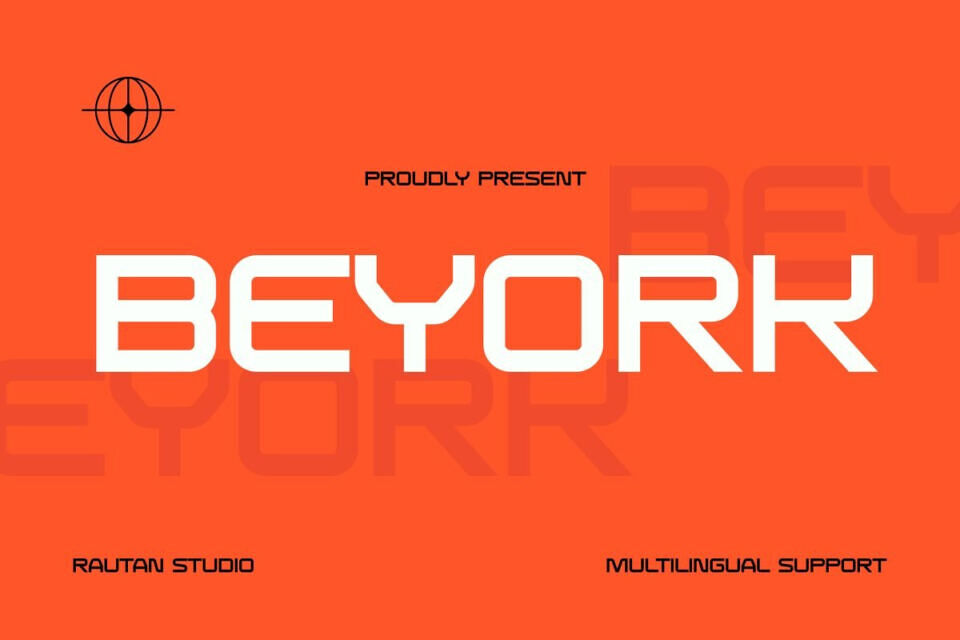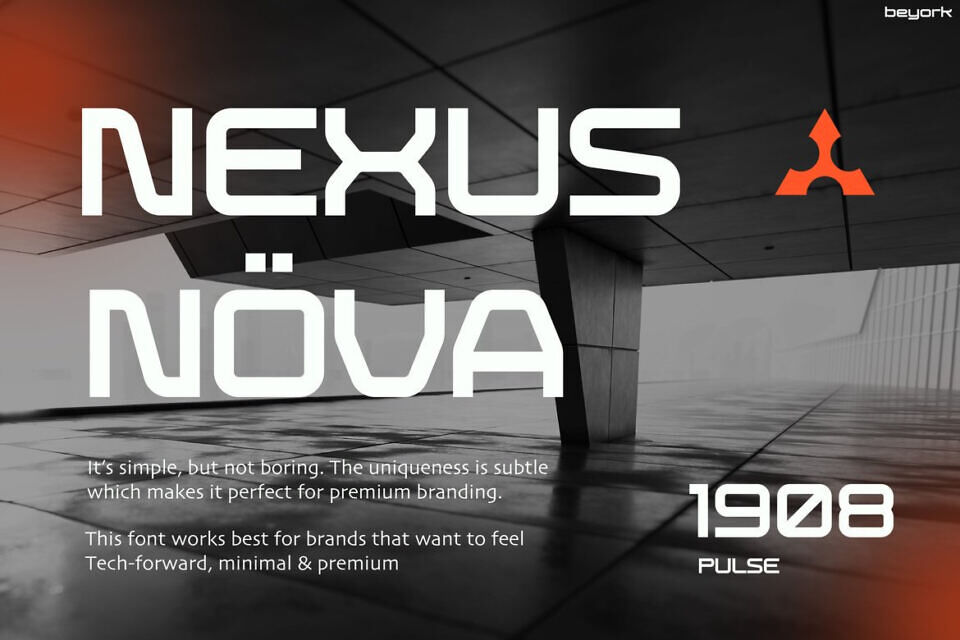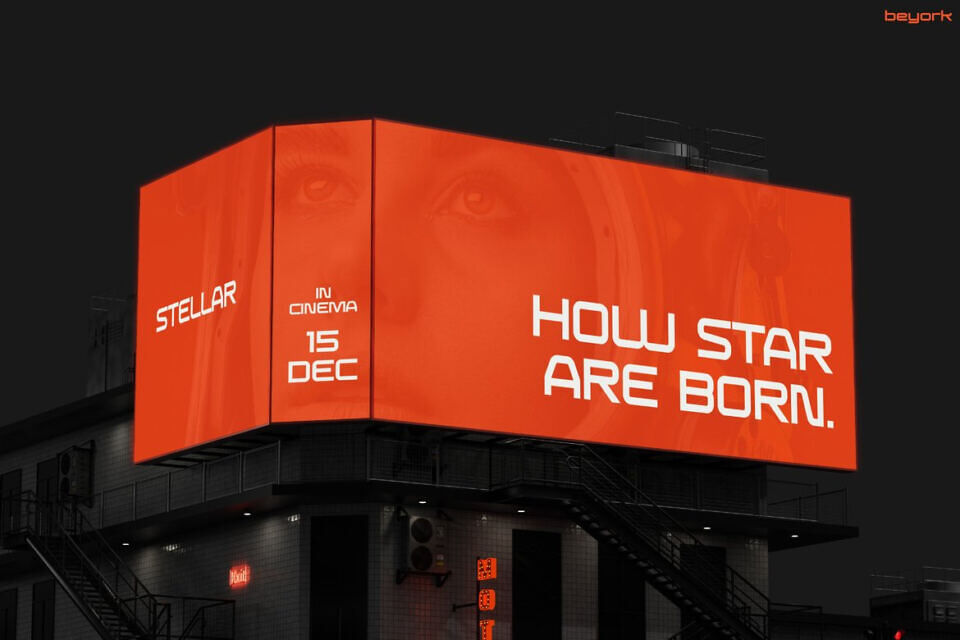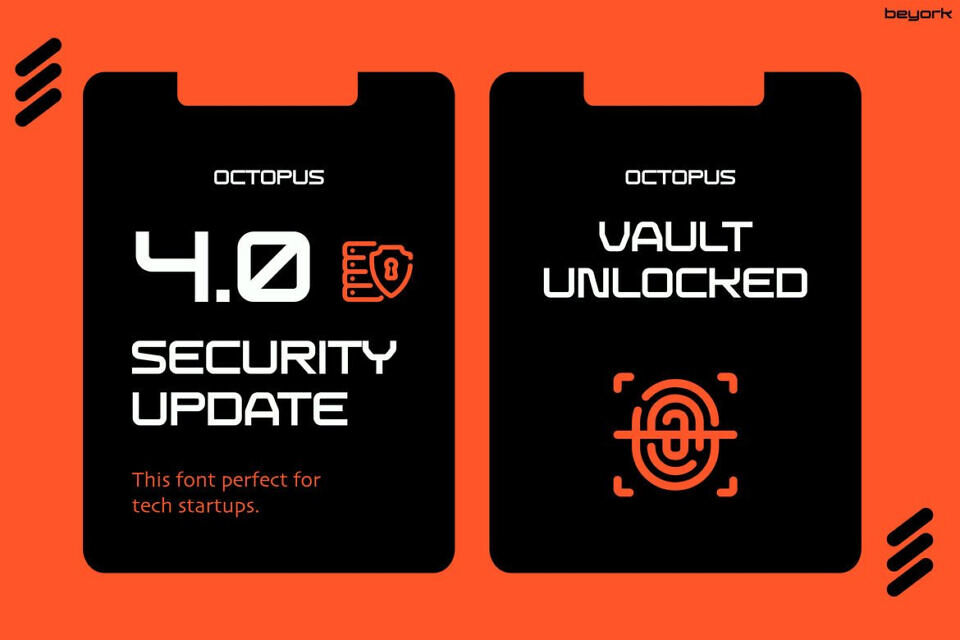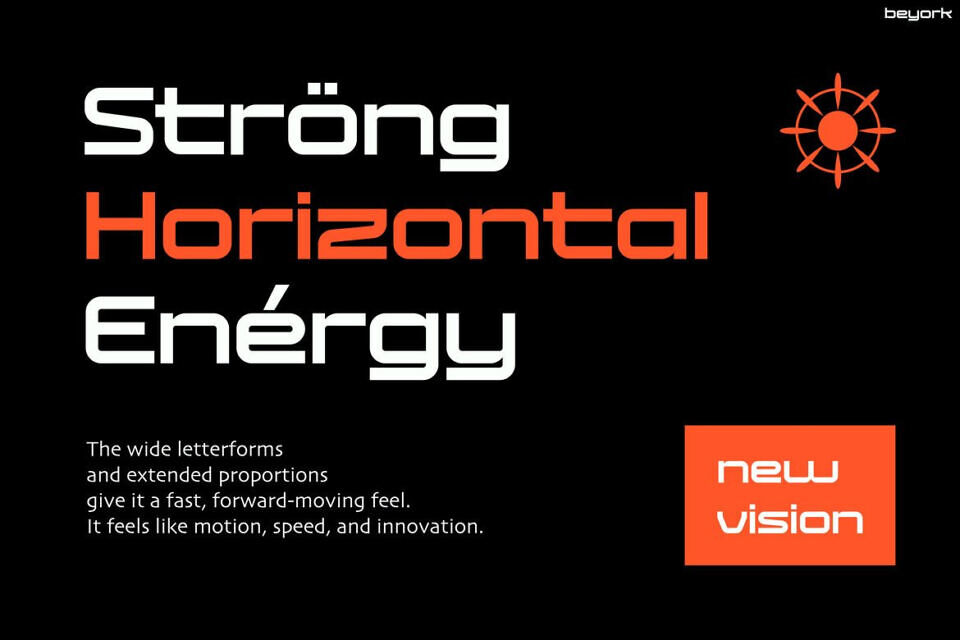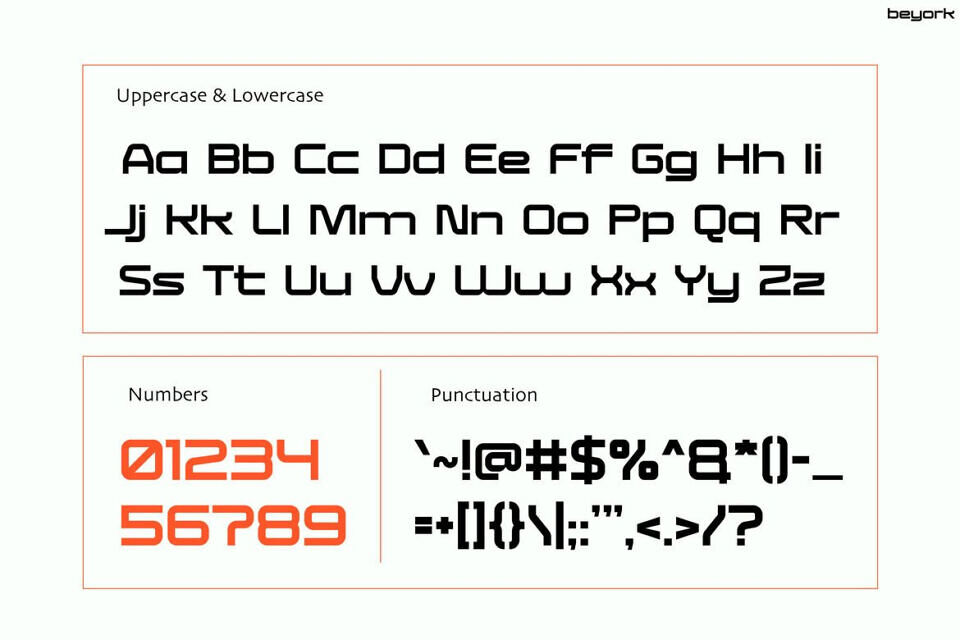
Beyork Font
BEYORK font delivers a futuristic style with sharp geometry and clean lines. It creates a bold, sleek look that feels modern and forward-thinking. Moreover, its structure blends precision with minimalism, so every letter looks strong and clear.
The design keeps high readability while adding a unique tech-driven aesthetic. Therefore, it works perfectly for headlines and branding. In addition, BEYORK brings a sense of innovation, confidence, and digital energy. With support for 67 languages, it helps you reach a global audience easily.